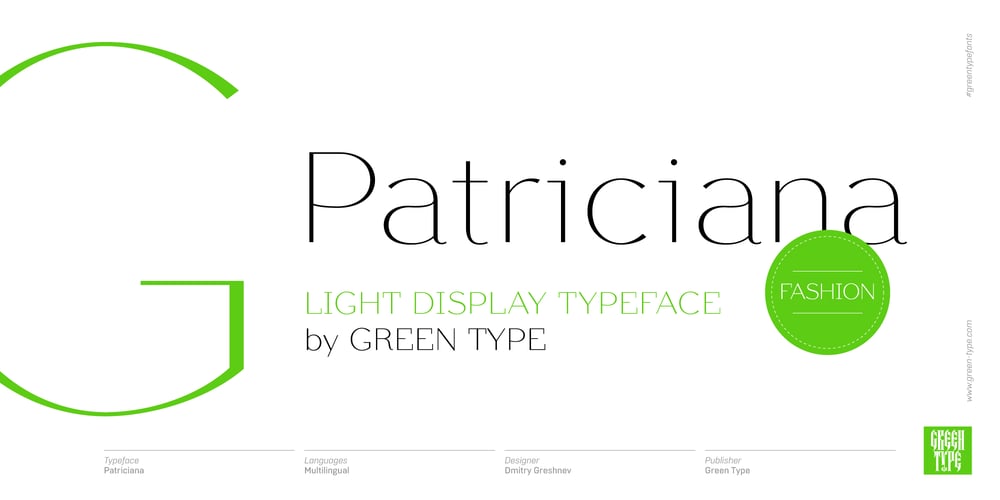
Patriciana Font Family was designed by Dmitry Greshnev and published by Green Type. Patriciana contains 1 styles and family package options. Patriciana is an elegant light sans serif typeface. Great for use in the fashion industry, for magazines and advertising. Patriciana supports Latin, Cyrillic scripts, and includes stylistic alternates and ligatures.